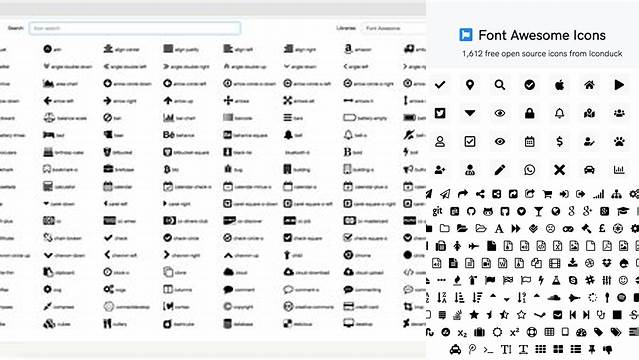
Font Awesome Icons: Free And Easy Guide
Hey guys! Ever felt like your website or app is missing that special something? Chances are, a simple icon could be the answer! Icons are visual cues that can make your content more engaging, user-friendly, and just plain better-looking. And when it comes to icons, Font Awesome is a name you'll hear a lot. So, what exactly is Font Awesome, and how can you snag those awesome icons for free? Let's dive in!
What is Font Awesome?
Font Awesome is essentially a massive library of scalable vector icons that you can customize with CSS. Think of it as a font, but instead of letters, you get icons. This approach has several advantages. First, vector icons look crisp and clean at any size, whether it's on a tiny mobile screen or a giant desktop monitor. Second, because they're treated like fonts, you can easily change their size, color, shadow, and anything else you can do with CSS. Font Awesome isn't just a collection of icons; it's a toolkit for enhancing your website’s visual communication and user experience. The project started in 2012 and quickly grew into one of the most popular icon libraries on the web, thanks to its ease of use, extensive collection, and the option to use it for free under certain conditions. Whether you are a seasoned developer or just starting out, Font Awesome offers a straightforward way to add professional-looking icons to your projects. The consistent design across all icons ensures a cohesive look and feel for your website, contributing to a polished and professional appearance. Furthermore, Font Awesome regularly updates its library with new icons, keeping pace with current design trends and user needs. This continuous improvement means that you always have access to a fresh and relevant set of icons to enhance your projects. The scalability of vector icons ensures that your website looks great on any device, improving accessibility and user satisfaction. Font Awesome truly bridges the gap between functionality and design, making it an indispensable tool for web developers and designers alike.
Why Use Font Awesome Icons?
Font Awesome icons offer a plethora of benefits that make them an indispensable tool for web developers and designers. First and foremost, their scalability is a game-changer. Because they are vector-based, these icons maintain their sharpness and clarity regardless of the screen size or resolution. This is crucial in today's diverse device landscape, where your website needs to look just as good on a smartphone as it does on a high-resolution desktop monitor. Secondly, Font Awesome icons are incredibly easy to customize. Using CSS, you can effortlessly change their color, size, and even add effects like shadows or rotations. This level of control allows you to seamlessly integrate the icons into your website's design, ensuring they complement your brand's visual identity. Another significant advantage is the sheer variety of icons available. Font Awesome boasts a vast library that covers virtually every category imaginable, from social media logos to navigation arrows and everything in between. This extensive selection means you can always find the perfect icon to represent your content or functionality. Moreover, Font Awesome icons are designed with consistency in mind. Each icon is carefully crafted to ensure a uniform style, which contributes to a polished and professional look for your website. This consistency is particularly important for maintaining a cohesive brand image and enhancing user experience. Finally, the ease of implementation is a major draw for many developers. Font Awesome can be easily integrated into any web project with just a few lines of code, making it a quick and efficient way to enhance your website's visual appeal and usability. Whether you are a seasoned professional or a beginner, Font Awesome provides a user-friendly solution for incorporating high-quality icons into your designs, saving you time and effort while elevating the overall look and feel of your site. By leveraging Font Awesome, you not only enhance the aesthetic of your website but also improve its functionality and user engagement, making it an essential part of any modern web development toolkit.